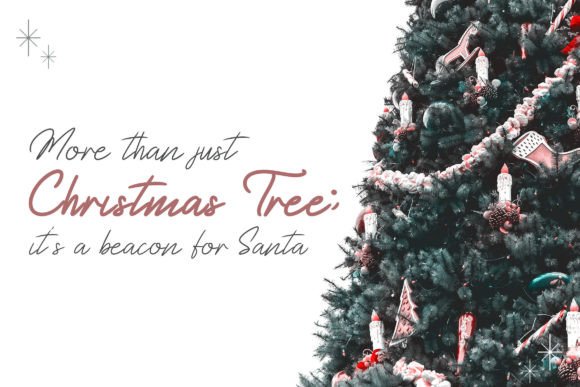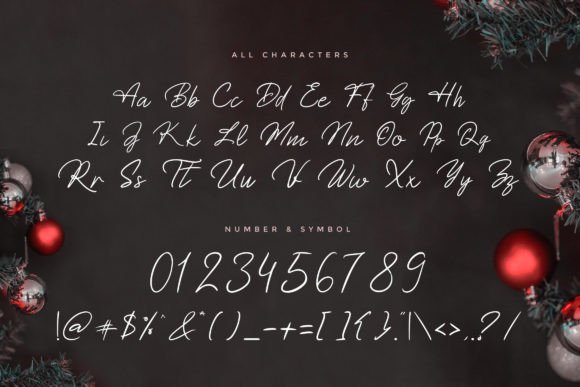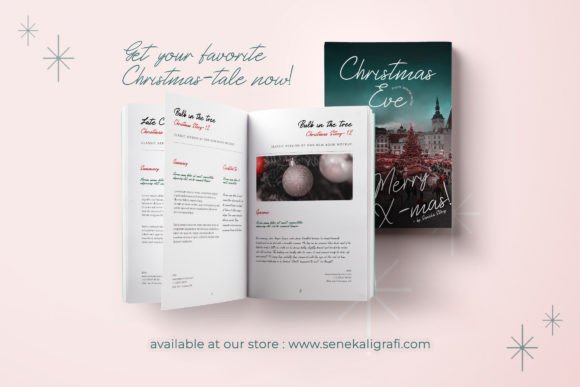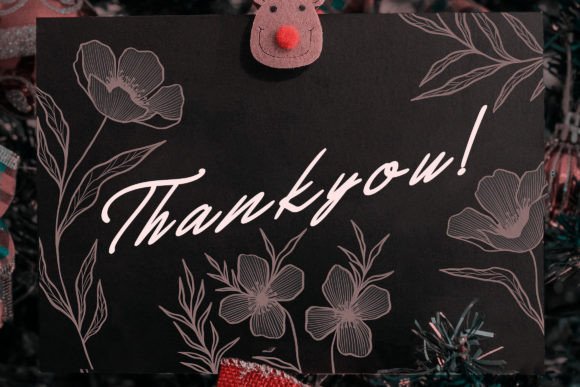
Deck the Halls with the Festive Christmas Tree Font
As the holiday season approaches, designers and crafters are on the lookout for the perfect typography to add a touch of festive flair to their projects. Look no further than the charming and whimsical Christmas Tree font, a playful addition to your design toolkit that’s sure to spread holiday cheer.
Bringing Holiday Magic to Your Designs
The Christmas Tree font is designed to capture the essence of the holiday season, with a charming and whimsical style that’s perfect for any festive occasion. Whether you’re working on Christmas projects, winter vacations, baby showers, or simply want to add a touch of holiday cheer to your designs, this font is sure to delight.
With the Christmas Tree font, the design possibilities are endless. Use it to create:
- Special and touching typographical designs for Christmas projects
- Festive winter vacation brochures and flyers
- Adorable baby shower invitations and decorations
- Heartwarming Christmas cards and greeting cards
- Eye-catching headings and titles for your holiday designs
- Unique product packaging for seasonal products
- Beautiful book covers for holiday-themed publications
- Inspirational printed quotes and posters
- Memorable logos and branding for holiday-related businesses
Why Choose the Christmas Tree Font?
So why choose the Christmas Tree font for your holiday designs? Here are just a few reasons:
- Festive and playful style: The Christmas Tree font is designed to capture the fun and festive spirit of the holiday season.
- Versatile and adaptable: This font is perfect for a wide range of design projects, from Christmas cards to product packaging.
- High-quality design: The font is carefully crafted to ensure a high level of quality and legibility.
Tips for Using the Christmas Tree Font
To get the most out of the Christmas Tree font, here are a few tips:
- Experiment with colors: The Christmas Tree font looks great in a range of festive colors, from bright reds and greens to metallic silvers and golds.
- Pair with complementary fonts: Try pairing the Christmas Tree font with complementary fonts to create a unique and eye-catching design.
- Use creative typography: Don’t be afraid to get creative with typography, using techniques like bolding, italicizing, and kerning to add visual interest to your design.
The Christmas Tree font is a fun and festive addition to any design toolkit, perfect for spreading holiday cheer through all your projects. With its charming and whimsical style, versatile adaptability, and ease of use, this font is sure to become a favorite among designers and crafters. So why wait? Download the Christmas Tree font today and start creating your own magical holiday designs.